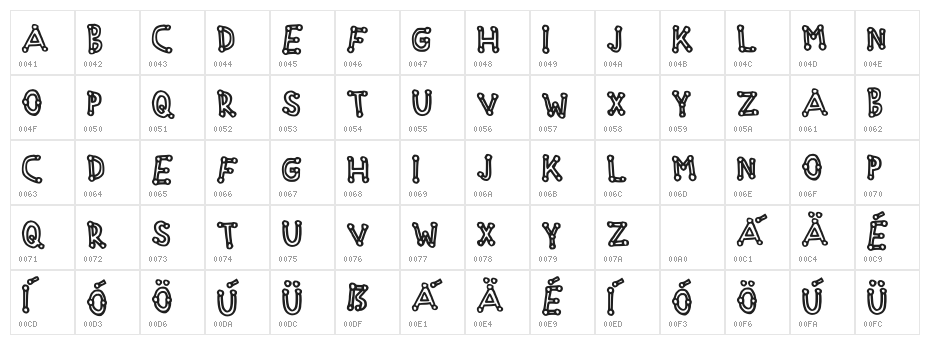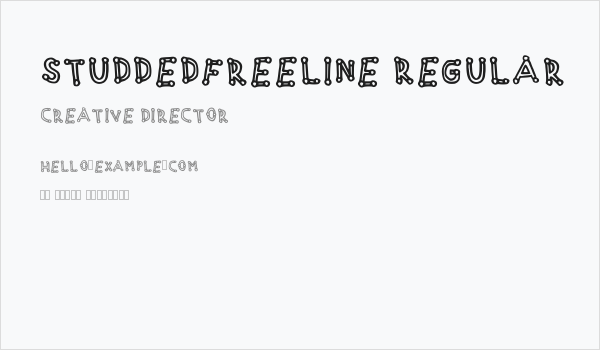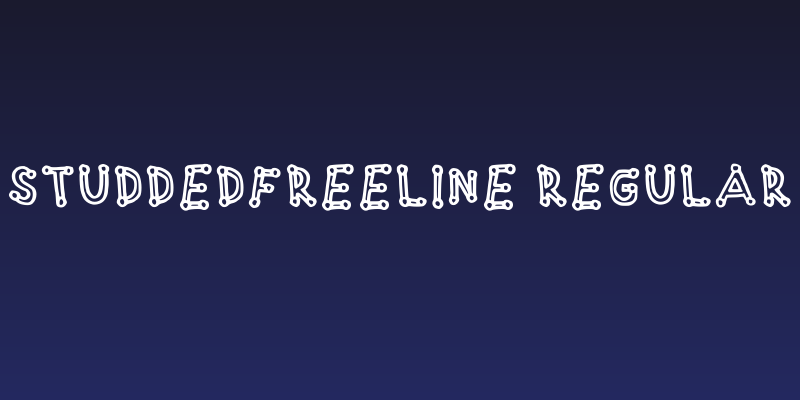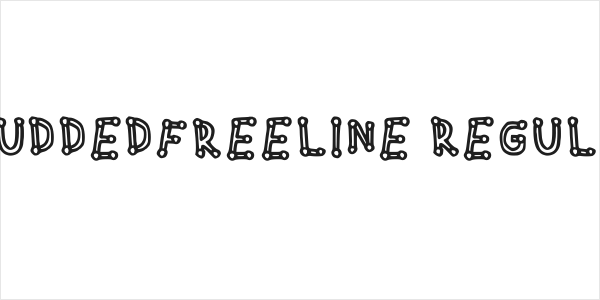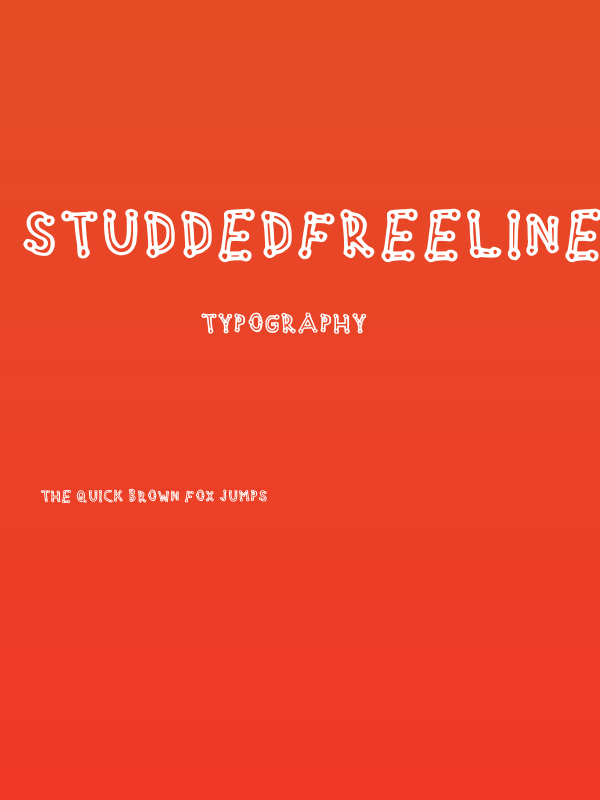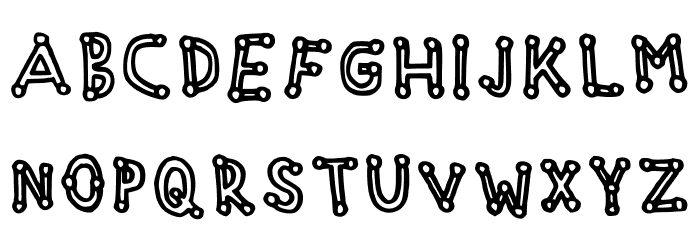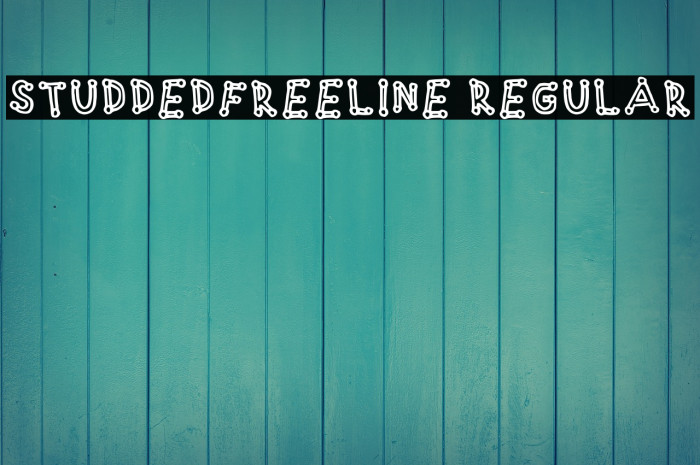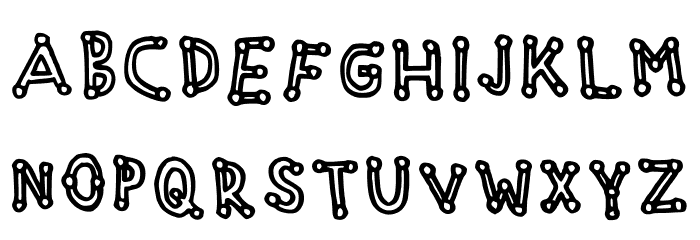
Studdedfreeline Regular Font
Studdedfreeline Regular Description
This font features a playful and unique design with a studded appearance, giving each character a distinct and decorative look. The letters are outlined with small circular embellishments, creating a sense of movement and energy. The style is consistent across uppercase and lowercase letters, as well as numbers and special characters. The design is bold and eye-catching, making it suitable for creative and informal projects. Its decorative nature adds a whimsical touch, making it ideal for projects that require a fun and engaging visual element.
| Proposed Projects | Ideal for children's book covers, party invitations, playful branding, and creative posters. |